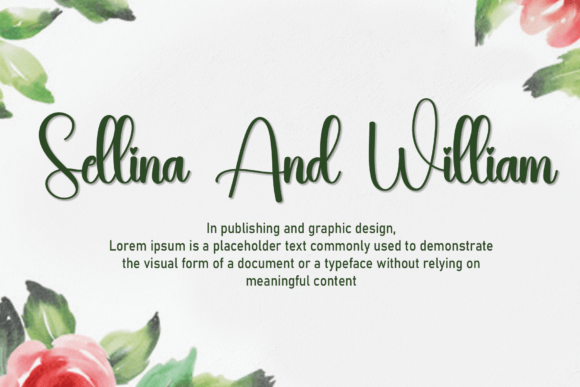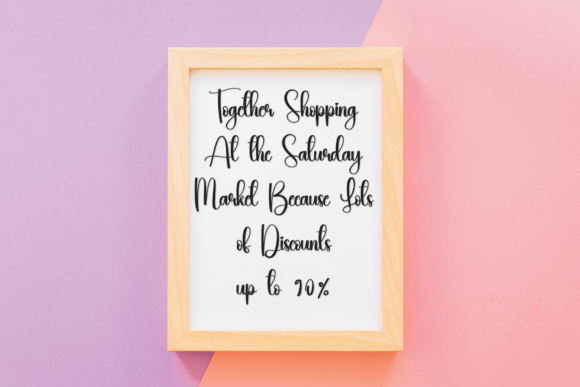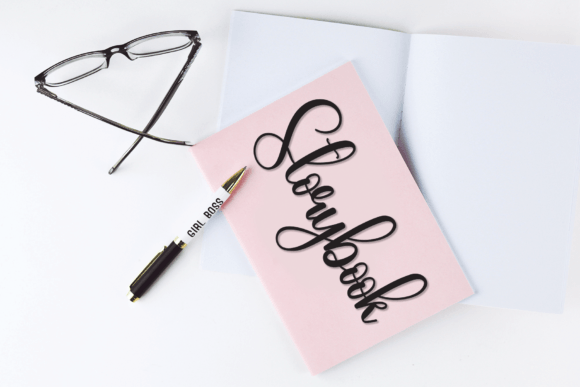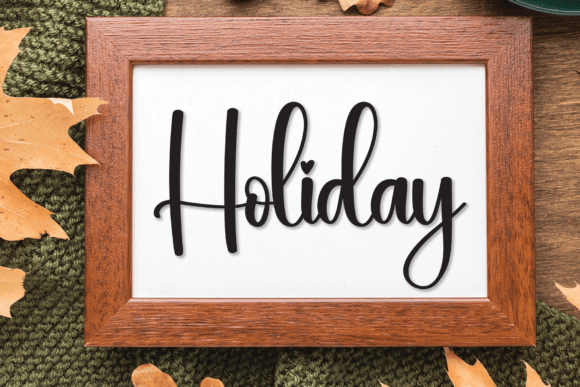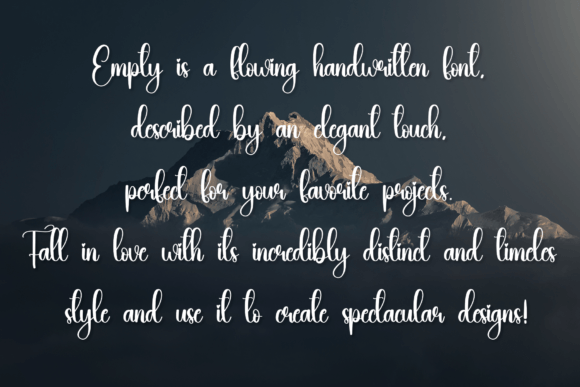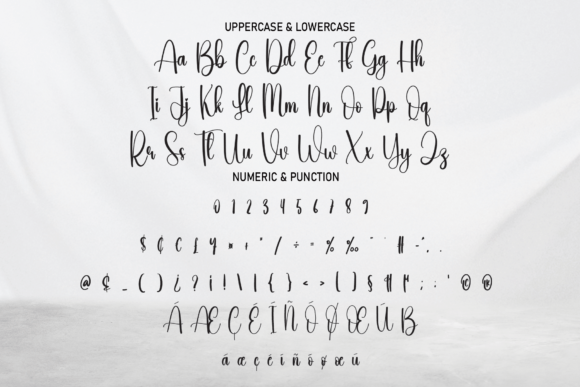
Introducing Empty Font: Elevate Your Designs with Elegant Cursive Handwritten Script
In the world of design, typography plays a crucial role in conveying messages, evoking emotions, and creating a lasting impression. For designers and crafters seeking to add a personal touch to their projects, the Empty font is an excellent choice. This cursive handwritten script font is designed to bring elegance and style to any design, making it an incredible asset to your fonts library.
What is Empty Font?
Empty is a beautiful, cursive handwritten script font that exudes sophistication and refinement. Its elegant strokes and flowing connections make it perfect for a wide range of design applications, from wedding invitations and branding materials to digital content and craft projects. With its unique and stylish appearance, Empty font is sure to capture the attention of your audience and leave a lasting impression.
Key Features of Empty Font
- Elegant and Stylish: Empty font boasts a sophisticated and refined design, making it ideal for designs that require a touch of luxury and elegance.
- Cursive Handwritten Script: The font’s cursive handwritten script style adds a personal and human touch to your designs, making them more relatable and engaging.
- Versatile: Empty font is suitable for a wide range of design applications, including print and digital media, making it a versatile addition to your fonts library.
- Easy to Read: Despite its elegant and cursive nature, Empty font remains easy to read, ensuring that your message is conveyed clearly and effectively.
Use Cases for Empty Font
Empty font is an incredibly versatile typeface that can be used in various design projects, including:
- Wedding Invitations and Stationery: Add a touch of elegance and sophistication to your wedding invitations, save-the-date cards, and other stationery with Empty font.
- Branding and Packaging: Use Empty font to create luxurious and high-end branding materials, such as logos, business cards, and product packaging.
- Digital Content: Elevate your digital content, including blog posts, social media graphics, and email newsletters, with the elegant and stylish Empty font.
- Craft Projects: Empty font is perfect for crafters who want to add a personal touch to their projects, such as handmade cards, scrapbooking, and DIY crafts.
Tips for Using Empty Font Effectively
To get the most out of Empty font, consider the following tips:
- Pair with Other Fonts: Combine Empty font with other fonts to create a unique and visually appealing typography combination.
- Use for Headings and Titles: Empty font is perfect for headings and titles, where its elegant and cursive style can make a lasting impression.
- Experiment with Colors and Textures: Try pairing Empty font with different colors and textures to add depth and visual interest to your designs.
In conclusion, Empty font is an elegant and stylish cursive handwritten script font that can elevate your designs and add a personal touch to any project. With its versatile nature, ease of use, and range of applications, Empty font is an excellent addition to any designer’s or crafter’s fonts library. Whether you’re working on a wedding invitation, branding materials, or a digital project, Empty font is sure to make a lasting impression.